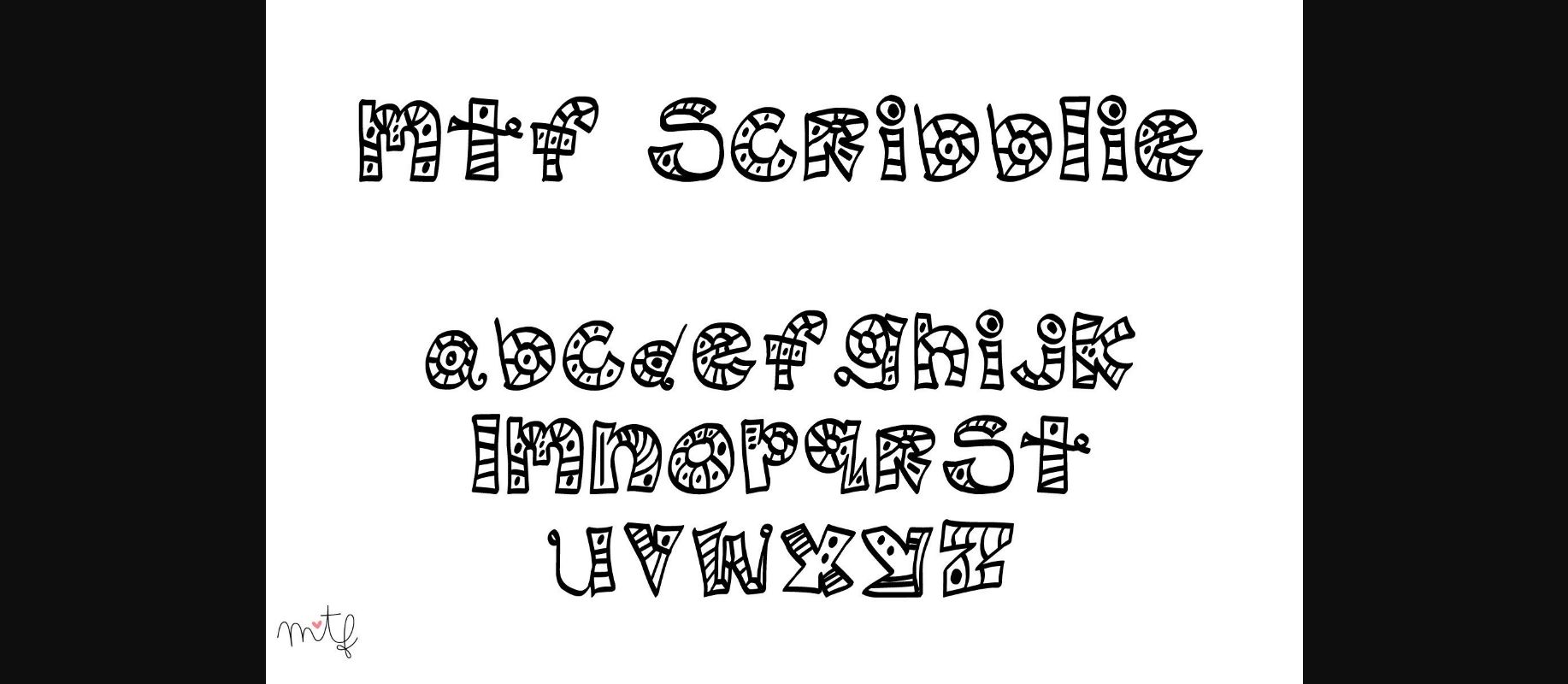
HomeDecorative FontsScribblie Font Decorative Fonts Scribblie Font FacebookXPinterestWhatsApp 1 of 1 ... About Scribblie Font Scribblie is a fun and playful decorative font. Its letters are perfectly bold and unique, suitable for covers, posters, banners, storybooks, or any item that needs a special look. DOWNLOAD NOW People also explored Emma Fled Font Spring Time Font Valentines Calestan Font Waringin Font Grown Font Gayora Font Holla Hearth Font Twinkling Font 281 0 TagsScribblie Font Previous articleWhacko FontNext articleJenglot Helloween Font LEAVE A REPLY Cancel reply Comment: Please enter your comment! Name:* Please enter your name here Email:* You have entered an incorrect email address! Please enter your email address here Website: Save my name, email, and website in this browser for the next time I comment. Personal Use Free Mellow Personal Use Free Read more about this font Hello Sister Personal Use Free Read more about this font Solaria Personal Use Free Read more about this font Bonifaciy Personal Use Free Read more about this font BLOG How to Cut Any Font on Cricut: Convert a Font to SVG (Free) Turn any font into a clean SVG so it cuts crisp on Cricut - a quick 3-step workflow using a free font-to-SVG tool. Free vs Paid Fonts: Why Investing in Premium Fonts Is Worth It To increase your work productivity, choose the most readable fonts. Fonts That Capture the Spirit of New York City